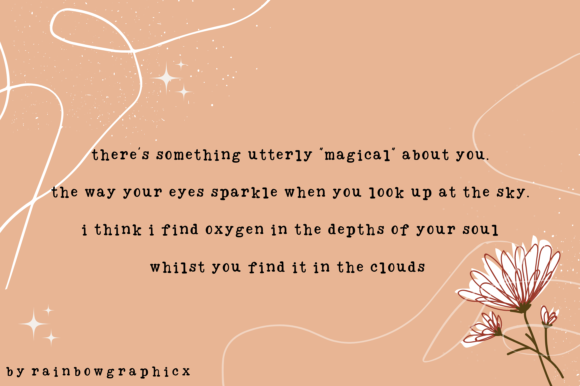
This Field Trip Typewriter font illustrates the beautiful nature of field trips this season! This typewriter font is different from others as it’s more funky and creative. You can use this beautiful font for digital letters, printable, templates, coloring books, and more.
Field Trip Typewriter Font